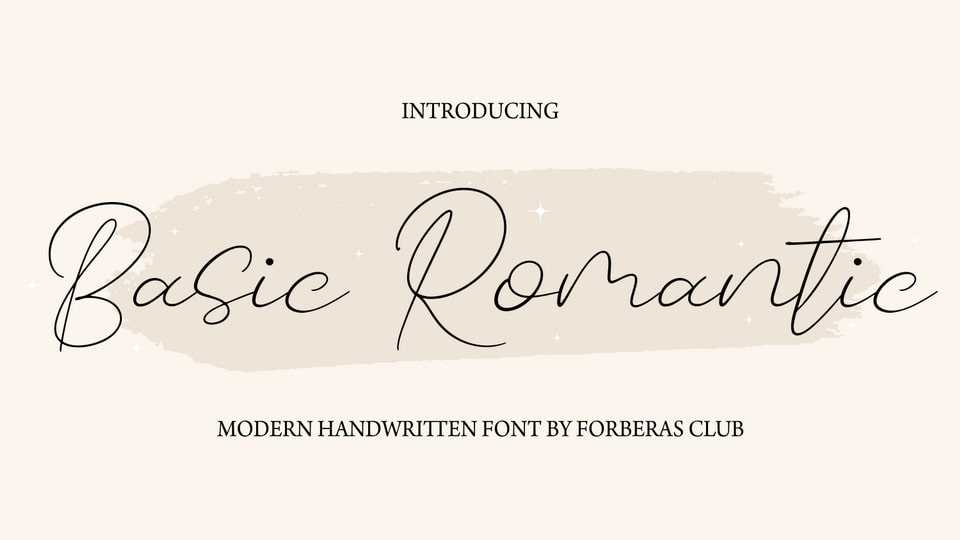
Download Basic Romantic font, a script inspired by modern and ligature characters. Basic Romantic is especially designed for luxury, elegant, feminine projects.